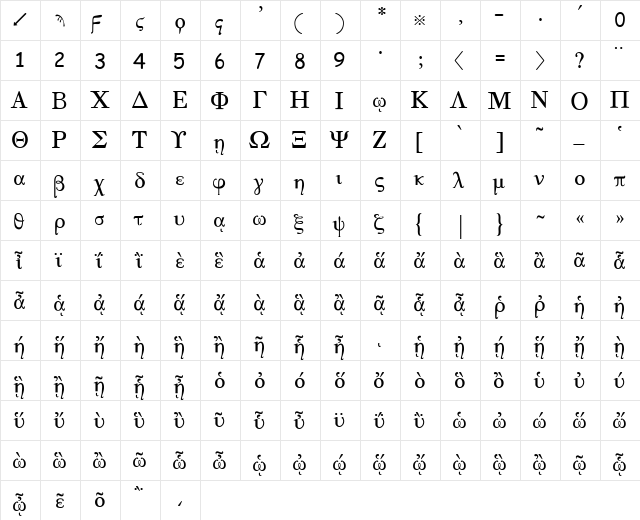
Grammata Normal
| Designer | Juan Jos頍arcos Garc Plasencia. ESPAс |
Design Context for Grammata Typeface
Grammata offers clean, dependable letterforms without strong stylistic allegiance, making it a practical choice for designers who need flexibility.